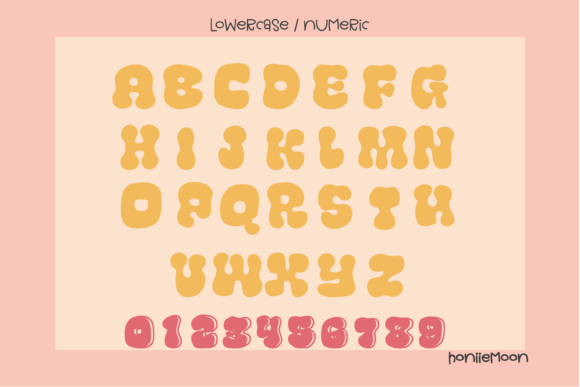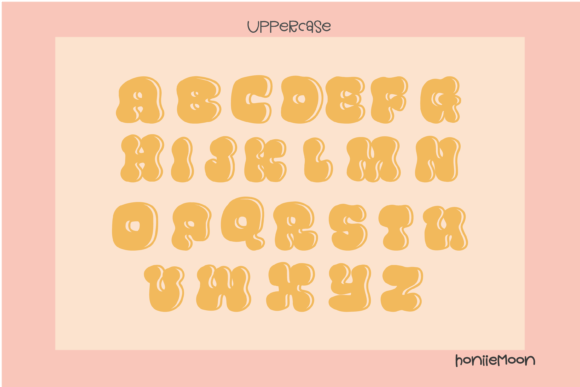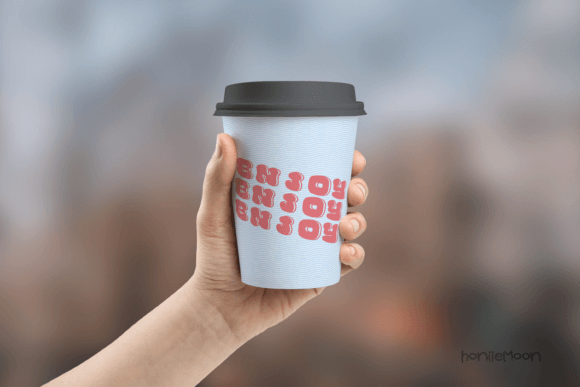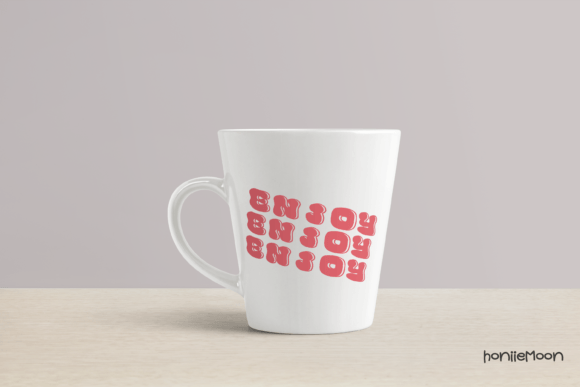
Introducing Enjoy Font: The Ultimate Display Font for Creative Designs
Are you tired of using the same old fonts for your designs? Look no further! Enjoy Font is here to take your creative projects to the next level. This cool and fun display font is designed to add a touch of cuteness and jollity to your designs, making them stand out from the crowd.
Enjoy Font is a versatile display font that can be used for a wide range of creative projects, from digital designs to print materials. Its bold and colorful appearance makes it perfect for designers and crafters who want to add a pop of personality to their work. Whether you’re creating social media graphics, posters, flyers, or invitations, Enjoy Font is the perfect choice.
What Makes Enjoy Font So Special?
So, what sets Enjoy Font apart from other display fonts? Here are just a few reasons why designers and crafters love this font:
- Cute and Jolly Design: Enjoy Font features a playful and cheerful design that’s sure to bring a smile to your face. Its cute and jolly appearance makes it perfect for designs that require a touch of whimsy and fun.
- Bold and Colorful: This display font is designed to make a statement. Its bold and colorful appearance ensures that your designs will stand out from the crowd and grab attention.
- Highly Versatile: Enjoy Font can be used for a wide range of creative projects, from digital designs to print materials. Its versatility makes it a great addition to any designer’s font collection.
- Easy to Read: Despite its bold and playful design, Enjoy Font is easy to read, even at smaller sizes. This makes it perfect for designs that require a clear and concise message.
How to Use Enjoy Font in Your Designs
- Pair it with Other Fonts: Enjoy Font pairs well with other fonts, making it easy to create unique and interesting typography combinations.
- Experiment with Colors: This display font looks great in a variety of colors. Experiment with different colors to find the perfect combination for your design.
- Use it for Headings and Titles: Enjoy Font is perfect for headings and titles. Its bold and playful design makes it a great choice for adding emphasis to your text.
Why Designers and Crafters Love Enjoy Font
Designers and crafters love Enjoy Font for many reasons. Here are just a few:
- It’s Fun and Playful: Enjoy Font adds a touch of fun and playfulness to designs, making them more engaging and interesting.
- It’s Versatile: Enjoy Font can be used for a wide range of creative projects, making it a great addition to any designer’s font collection.
| Font Name | Enjoy Font |
| Author | Honiiemoon |